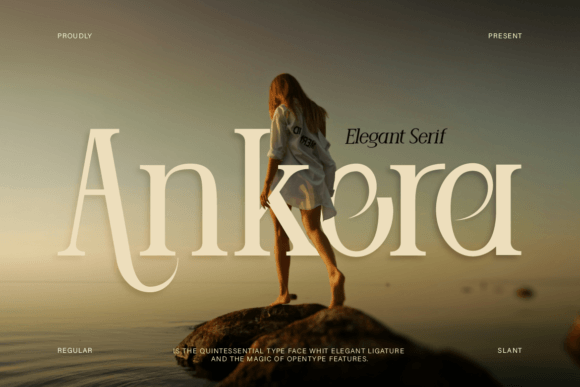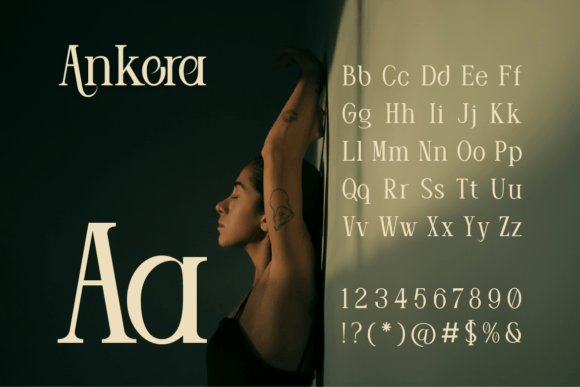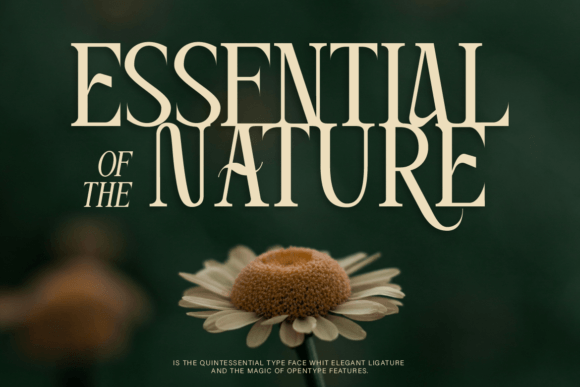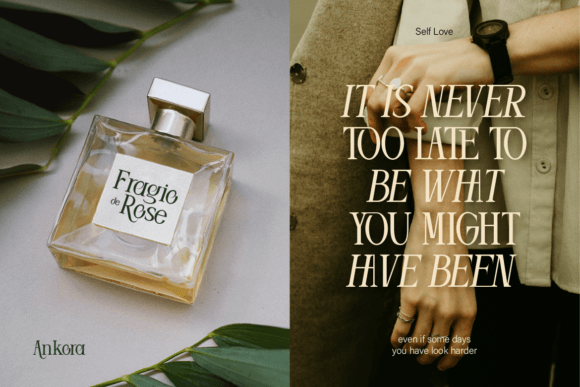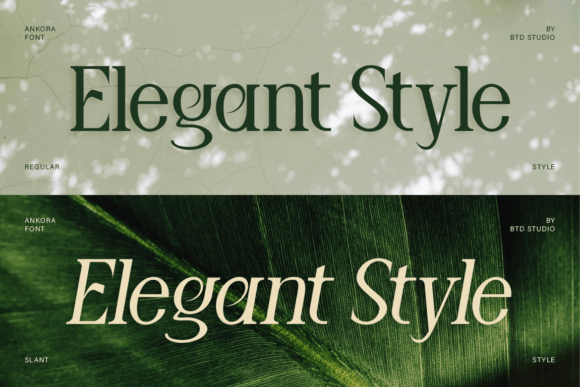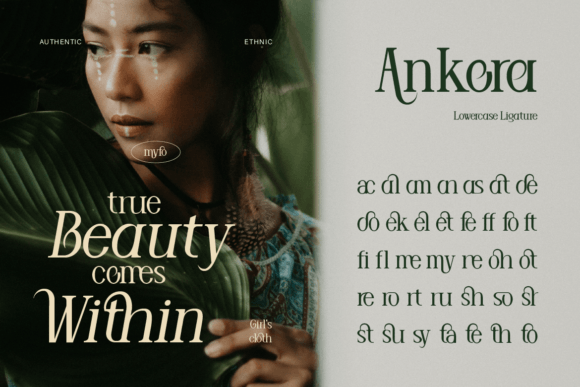
Introducing Ankora Font: The Epitome of Elegance and Sophistication
In the realm of typography, few fonts manage to strike a balance between classic elegance and modern sophistication as effortlessly as Ankora Font. This stylish serif font has been turning heads with its refined serifs and well-proportioned letterforms, making it an ideal choice for designers and crafters looking to elevate their projects. Whether you’re working on branding, editorial content, or luxury designs, Ankora Font brings a sense of timeless beauty and grace that is sure to leave a lasting impression.
The Anatomy of Ankora Font
Ankora Font boasts a traditional serif design, characterized by its delicate and refined serifs. These serifs add a touch of sophistication and elegance to the font, making it perfect for high-end branding and luxury designs. The letterforms are well-proportioned, with a keen attention to detail that ensures each character is aesthetically pleasing and highly legible. The x-height of the font is carefully crafted to provide a clear distinction between different letters, making it easy to read and understand.
One of the key advantages of Ankora Font is its versatility. This font can seamlessly transition from one design project to another, adapting effortlessly to different styles and themes. For branding projects, Ankora Font can add a sense of luxury and sophistication, helping to establish a strong and memorable identity. In editorial work, the font’s classic elegance shines through, making it perfect for high-end publications and magazines. Additionally, Ankora Font’s modern sophistication ensures it can also be used in digital platforms and websites, providing a consistent and premium feel across all mediums.
Why Choose Ankora Font?
There are several reasons why designers and crafters are gravitating towards Ankora Font:
- Timeless Appeal: Unlike trendy fonts that may quickly become outdated, Ankora Font’s classic design ensures it remains relevant and stylish for years to come.
- Elegance and Sophistication: The font’s refined serifs and elegant letterforms bring a touch of class to any project.
- High Legibility: Ankora Font’s well-proportioned letterforms and clear distinction between characters make it highly legible, even at smaller sizes.
- Versatility: From luxury brands to editorial content, Ankora Font adapts effortlessly to different design needs.
Using Ankora Font in Your Designs
- Pair with Complementary Fonts: Ankora Font works well with both sans-serif and script fonts. Experiment with different pairings to find the perfect combination for your project.
Ankora Font is more than just a stylish serif font; it’s a design statement. Its blend of classic elegance and modern sophistication makes it an invaluable asset for designers and crafters looking to create high-end designs. With its refined serifs, well-proportioned letterforms, and timeless appeal, Ankora Font is poised to become a favorite in the world of typography. Whether you’re working on a luxury brand, editorial content, or any project that demands elegance and sophistication, Ankora Font is the perfect choice.